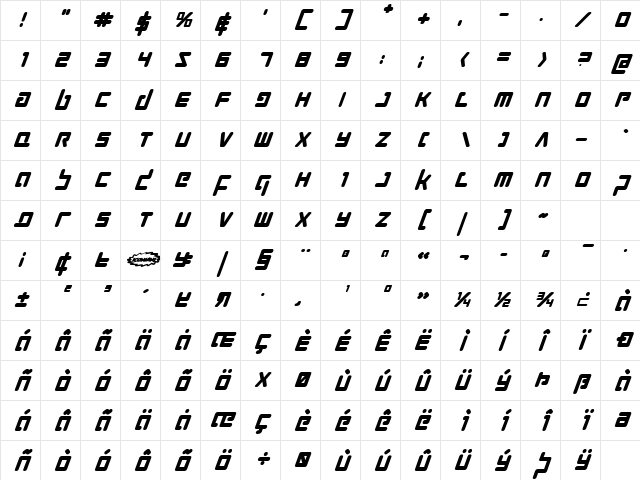
Prokofiev Bold Italic Bold Italic
Complete Prokofiev Bold Italic glyph index. Displaying only characters natively supported by Prokofiev Bold Italic font.
Design Context for Prokofiev Bold Italic
Prokofiev Bold Italic is a composed and adaptable typeface that performs quietly and consistently across a wide range of design contexts. The slanted form adds forward momentum and visual energy. Its bold stroke weight gives it real presence on the page.